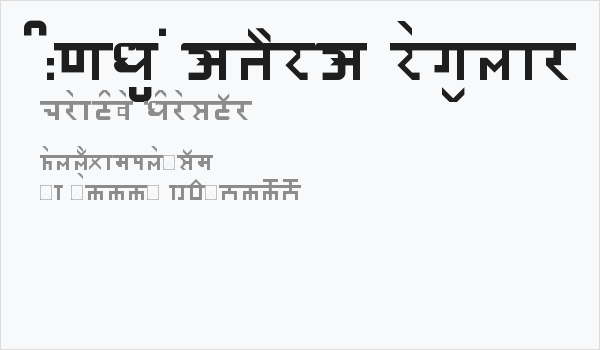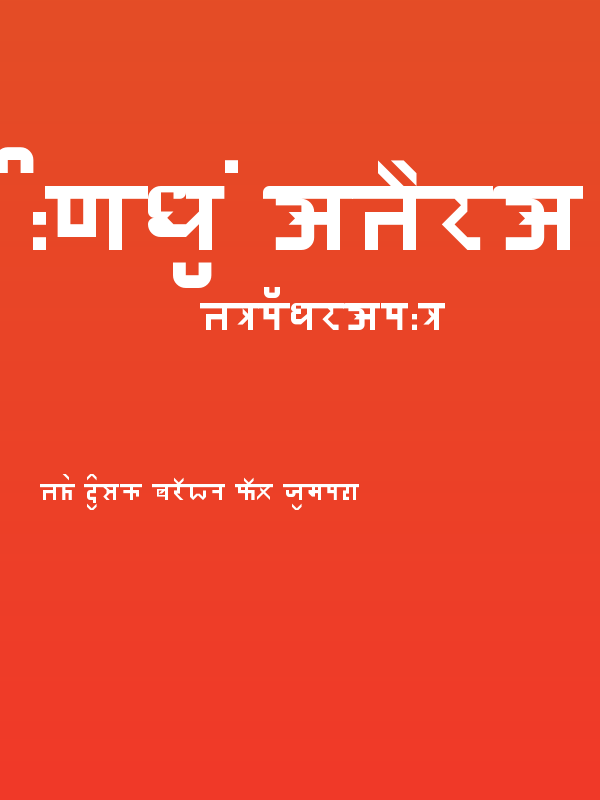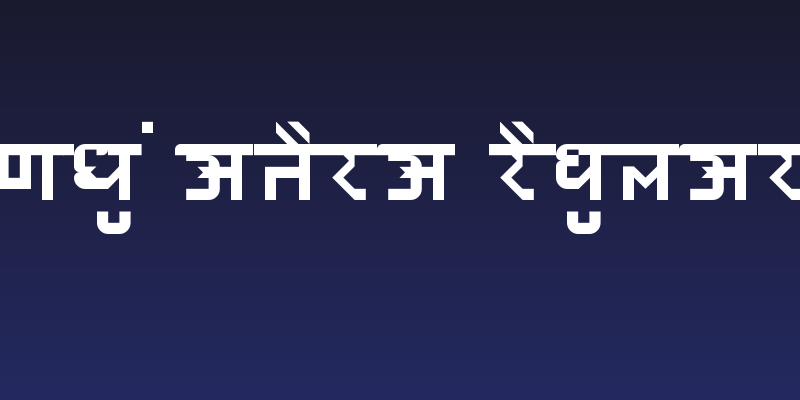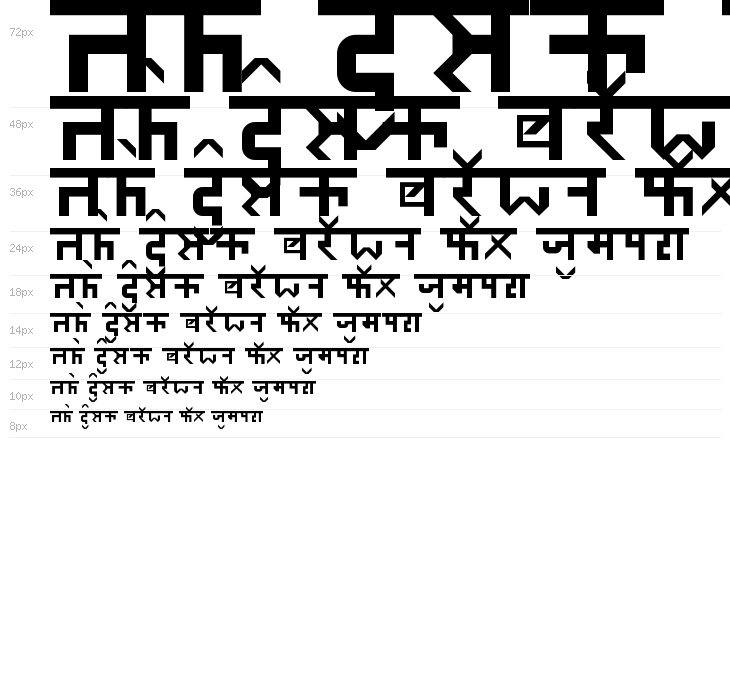
HINDU MATERA Regular Font
HINDU MATERA Regular Description
This font features a bold and geometric style, characterized by its strong, angular lines and uniform stroke widths. The characters are designed with a modern aesthetic, incorporating a sense of symmetry and balance. The overall appearance is clean and structured, making it suitable for creating a striking visual impact. The font maintains a consistent weight throughout, ensuring readability while adding a contemporary flair. Its unique design elements make it stand out, offering a distinctive look that can enhance various design projects.